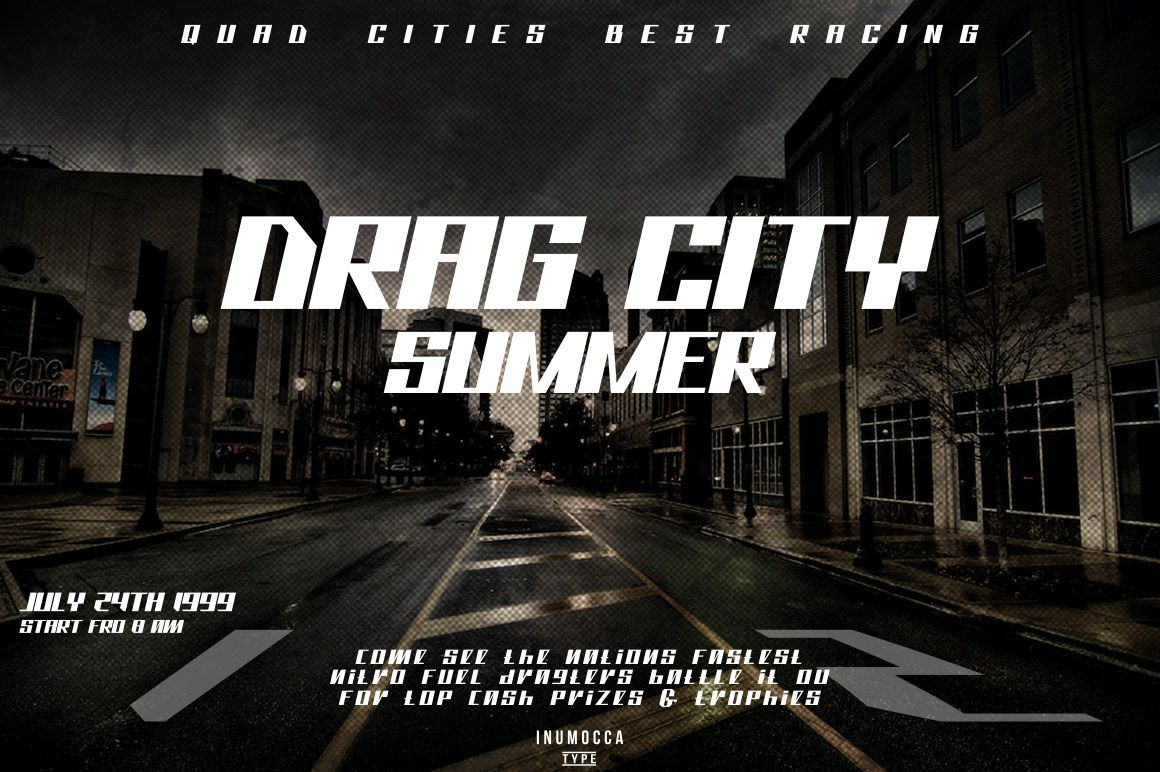
Bhejeuct gash typeface
Bhejeuct Gash Typeface
Bhejeuct Gash Typeface its a simple modern typeface,eye catching, more sharp really cool and manly to playing typography, your brand, your poster, Logos, catalog , all about of fashions, art and otomotive.
- UPPERCASE
- LowerCase
- Numeric,
- Symbol,
- Punctuation characters